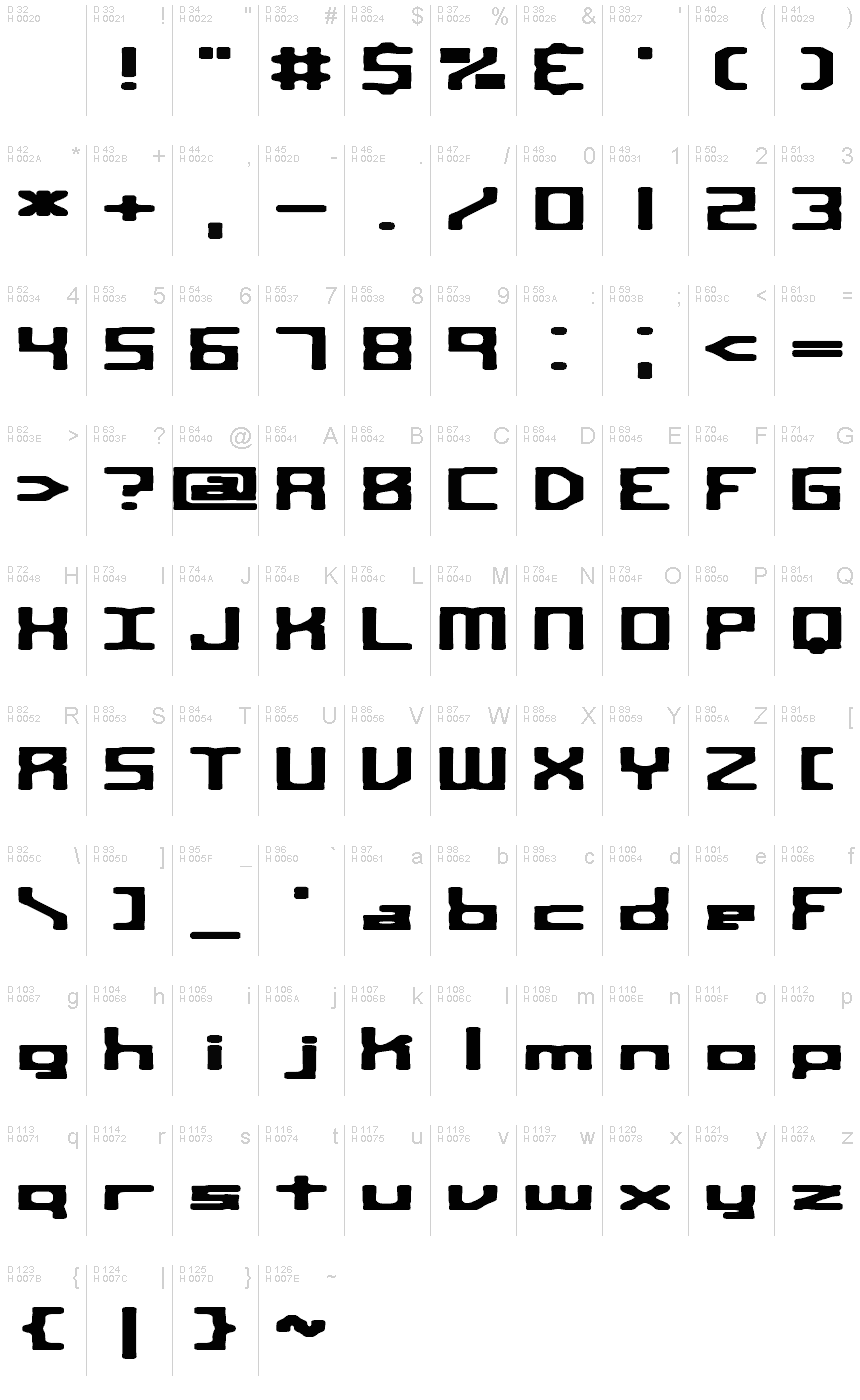
Square Route BRK
Square Route BRK, crafted by ÆNIGMA FONTS, is a display font that exudes a bold presence with its semi-bold weight and extra-expanded width. This typeface stands out for its blocky, geometric structure that commands attention and sets a modern tone. Its broad strokes and assertive form make it ideal for headlines, posters, and any project where making a strong visual impact is key.
The aesthetic appeal of Square Route BRK lies in its clean lines and contemporary vibe. The font's style is suggestive of digital precision and urban edge, making it particularly suitable for tech-oriented designs or creative endeavors that aim to convey innovation and strength.
With its distinct appearance, Square Route BRK presents endless possibilities for designers looking to push the envelope in branding, advertising campaigns, or any artistic composition where readability is harmonized with stylish flair. This font's character ensures it can carry a design on its own or complement other elements with equal effectiveness.
The aesthetic appeal of Square Route BRK lies in its clean lines and contemporary vibe. The font's style is suggestive of digital precision and urban edge, making it particularly suitable for tech-oriented designs or creative endeavors that aim to convey innovation and strength.
With its distinct appearance, Square Route BRK presents endless possibilities for designers looking to push the envelope in branding, advertising campaigns, or any artistic composition where readability is harmonized with stylish flair. This font's character ensures it can carry a design on its own or complement other elements with equal effectiveness.